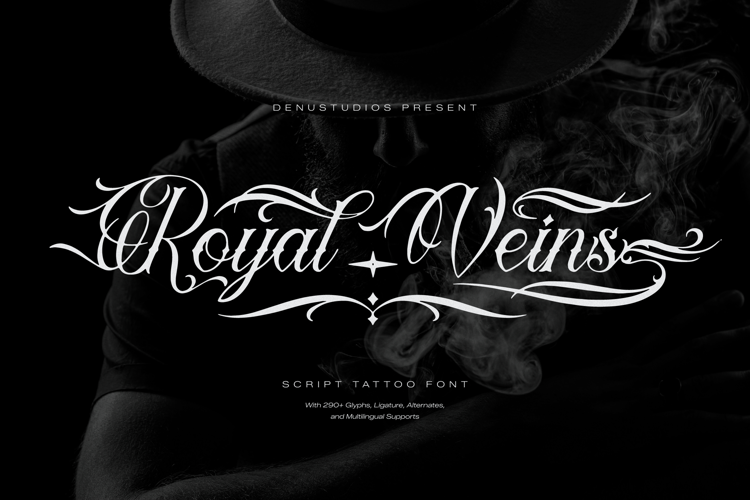
Chicago Tattoo Font With Chicano Font Styles | Edgy Tatoo
Unleash your creativity with "Chicago Tattoo Font With Chicano Font Styles | Edgy Tatoo font, Calligraphy Styles Custom Ink, Digital Art | Procreate, Photoshop POD Design", a premium collection of bold blackletter, elegant script, and Chicano calligraphy fonts tailored for tattoo artists, designers, and branding professionals. Perfect for custom tattoo lettering, streetwear branding, and vintage-inspired artwork, this font bundle captures the raw, artistic essence of tattoo culture.
🌟 Features:
✅ Authentic tattoo-style fonts with Chicano & gothic influences
✅ Perfect for tattoos, logos, merchandise, and apparel
🎯 Perfect For:
Custom tattoo lettering & designs
Old English & Chicano-inspired artwork
Merchandise & apparel branding
Streetwear & gothic logo designs
Vintage typography & digital art projects